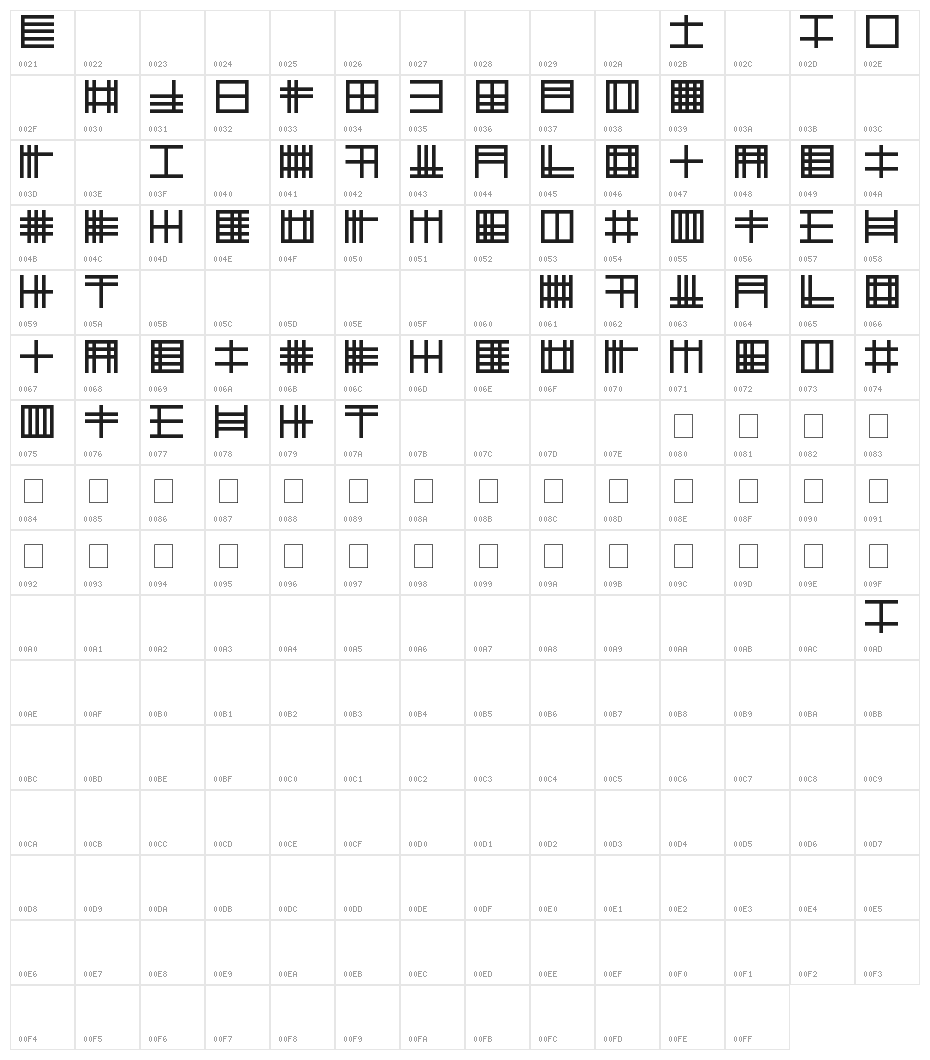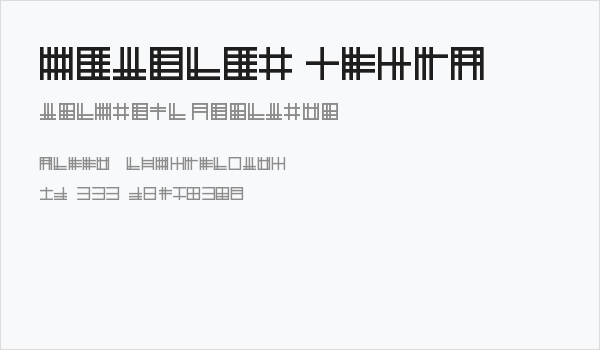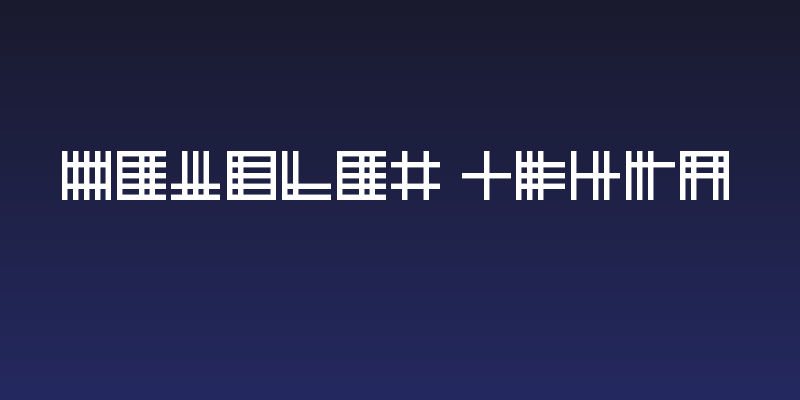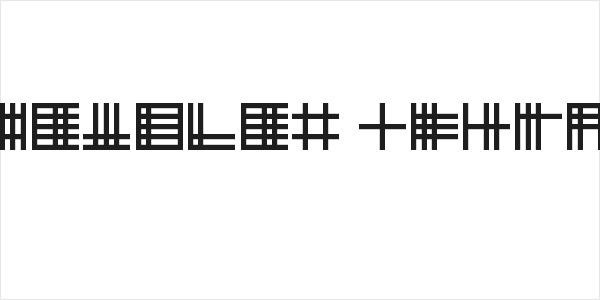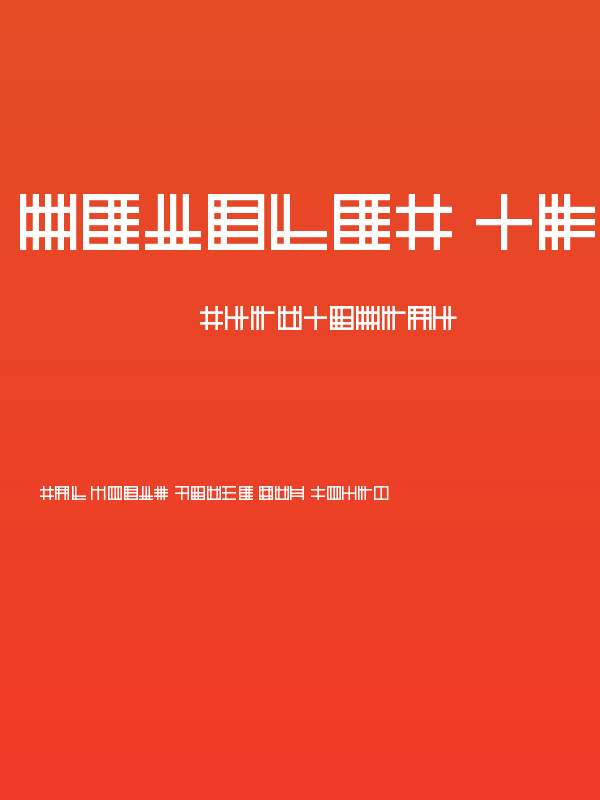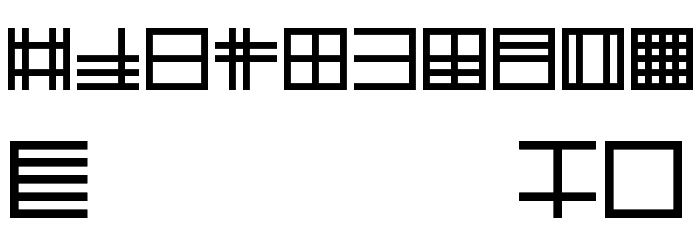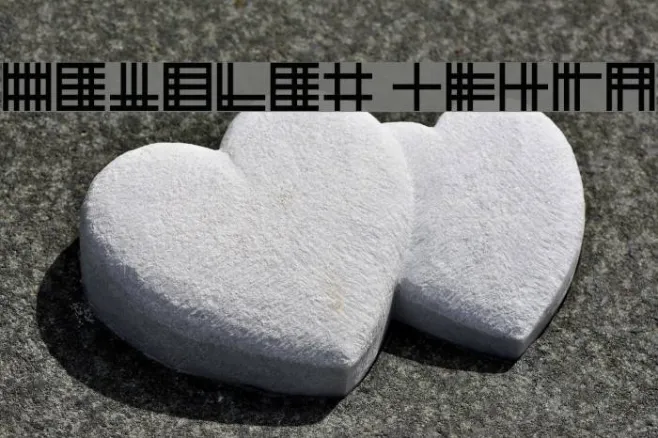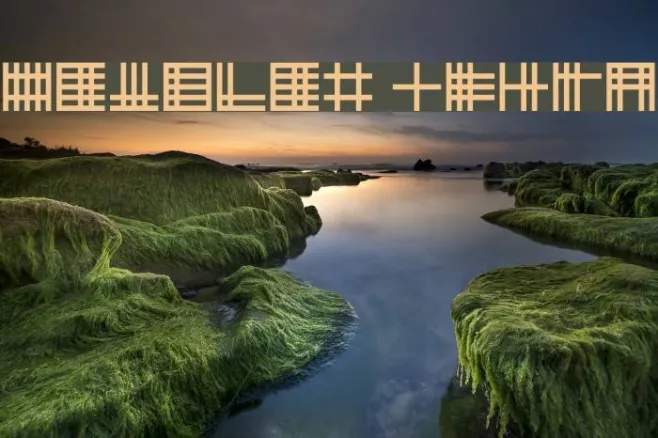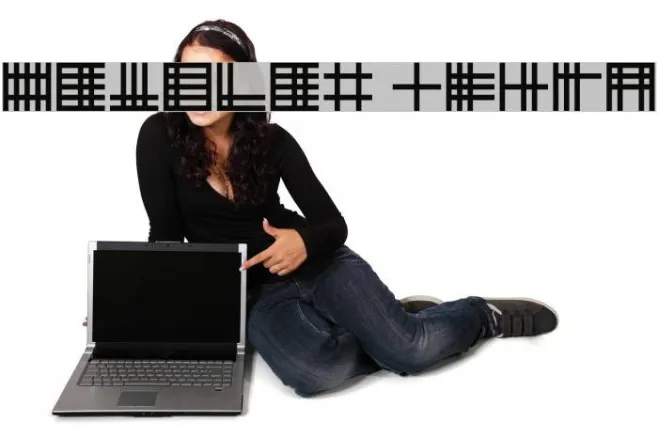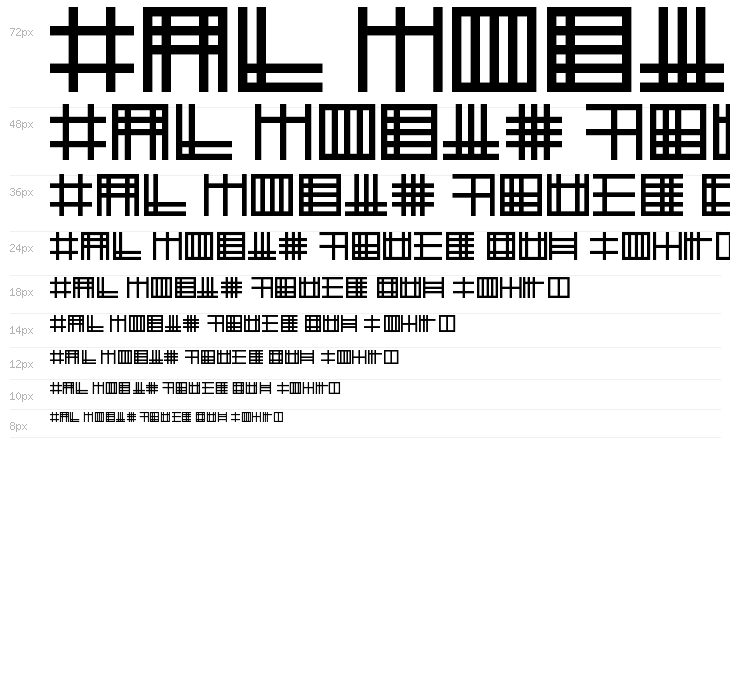
Ancient Glyph Font
Ancient Glyph Description
This font features a unique, ancient glyph-inspired design with bold, geometric shapes. Each character is composed of straight lines and right angles, creating a structured and uniform appearance. The characters resemble ancient symbols or hieroglyphs, giving the font a mysterious and historical feel. The consistent line thickness across all characters contributes to a cohesive look, while the absence of curves or soft edges emphasizes its geometric nature. This font is ideal for projects that require a touch of antiquity or a connection to ancient cultures.
| Use Case | Logos, Decorative elements |
| Proposed Projects | Ideal for historical or archaeological themed projects, logo designs for cultural events, or decorative elements in educational materials about ancient civilizations. |